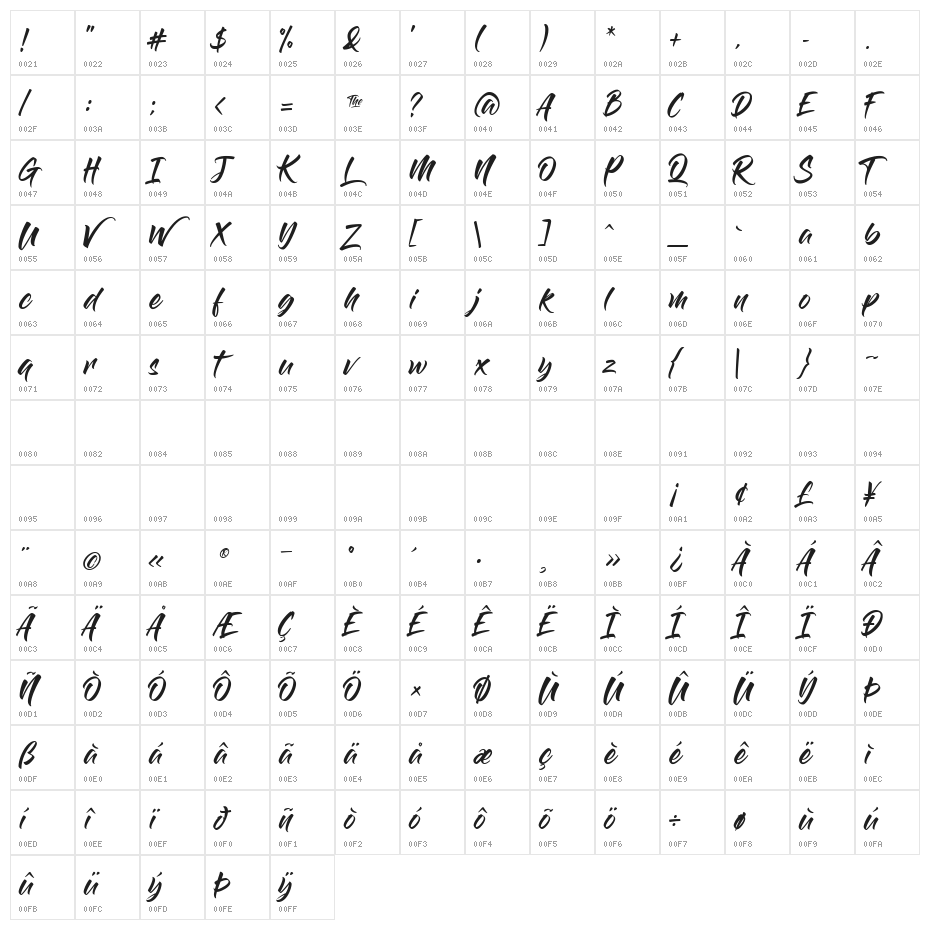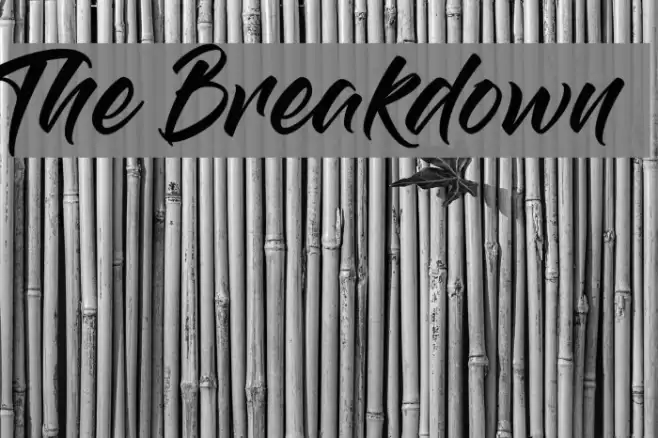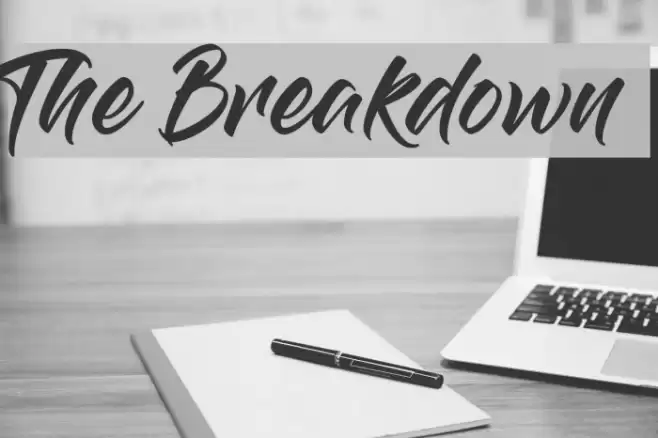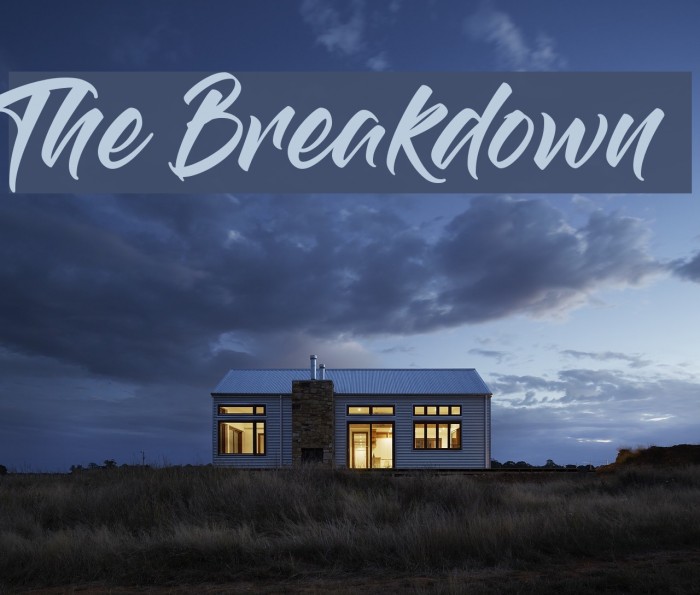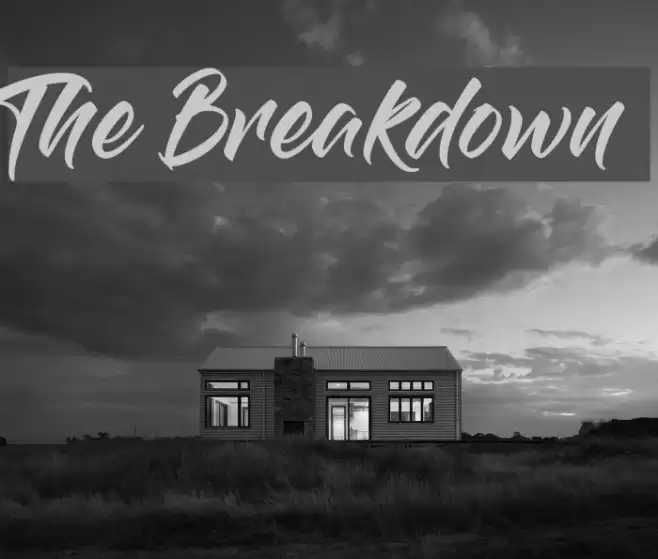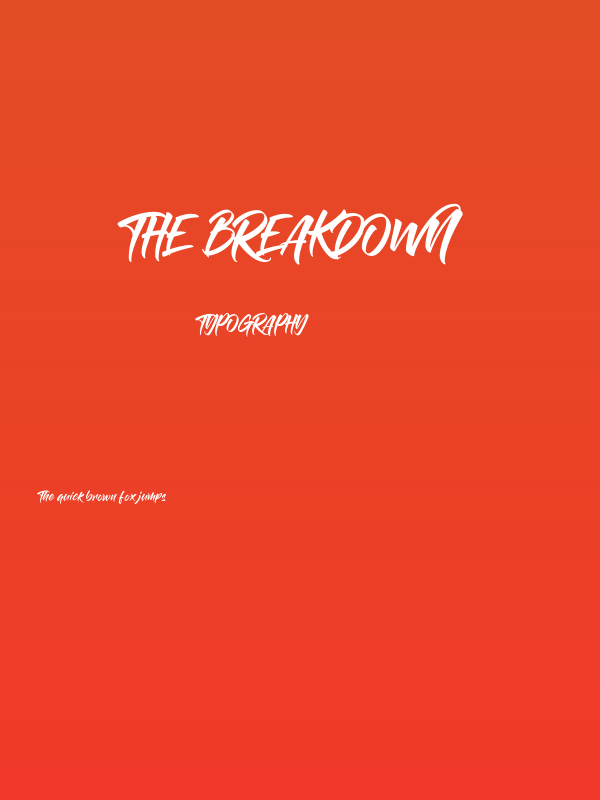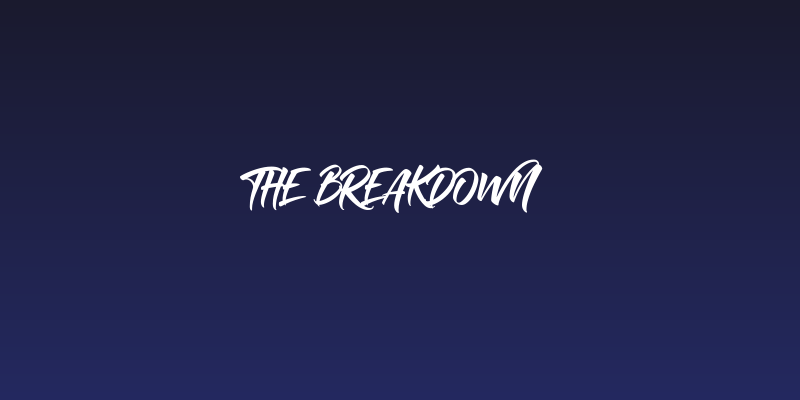
The Breakdown Font
The Breakdown Description
This dynamic and expressive font features bold, sweeping strokes that convey a sense of energy and movement. The characters are crafted with a brush-like quality, giving them a hand-drawn appearance that is both artistic and modern. The uppercase letters are particularly striking, with their dramatic curves and angles, while the lowercase letters maintain a consistent flow. The numbers and special characters are equally stylized, ensuring a cohesive look across all text. This font's unique style makes it ideal for projects that require a personal touch or a bold statement.
Proposed ProjectsIdeal for branding, posters, album covers, and social media graphics.